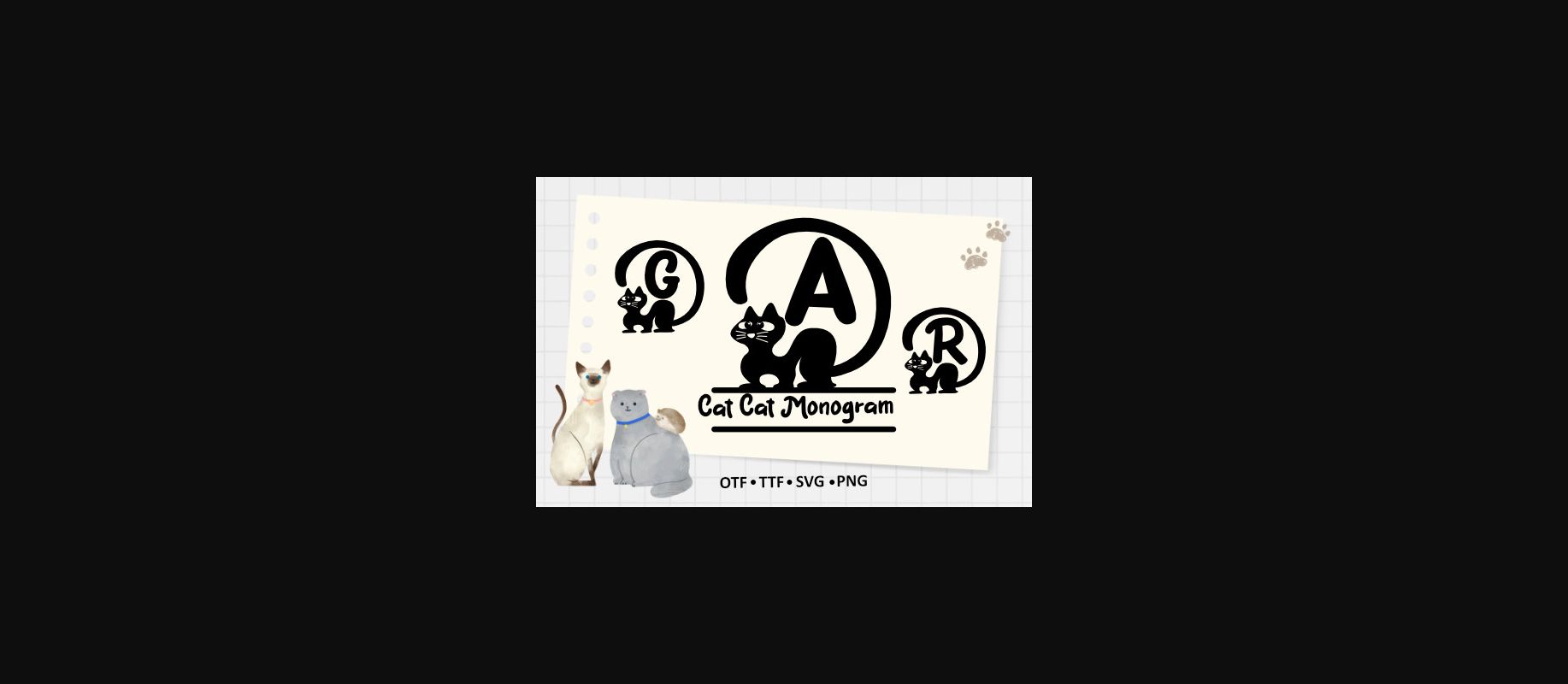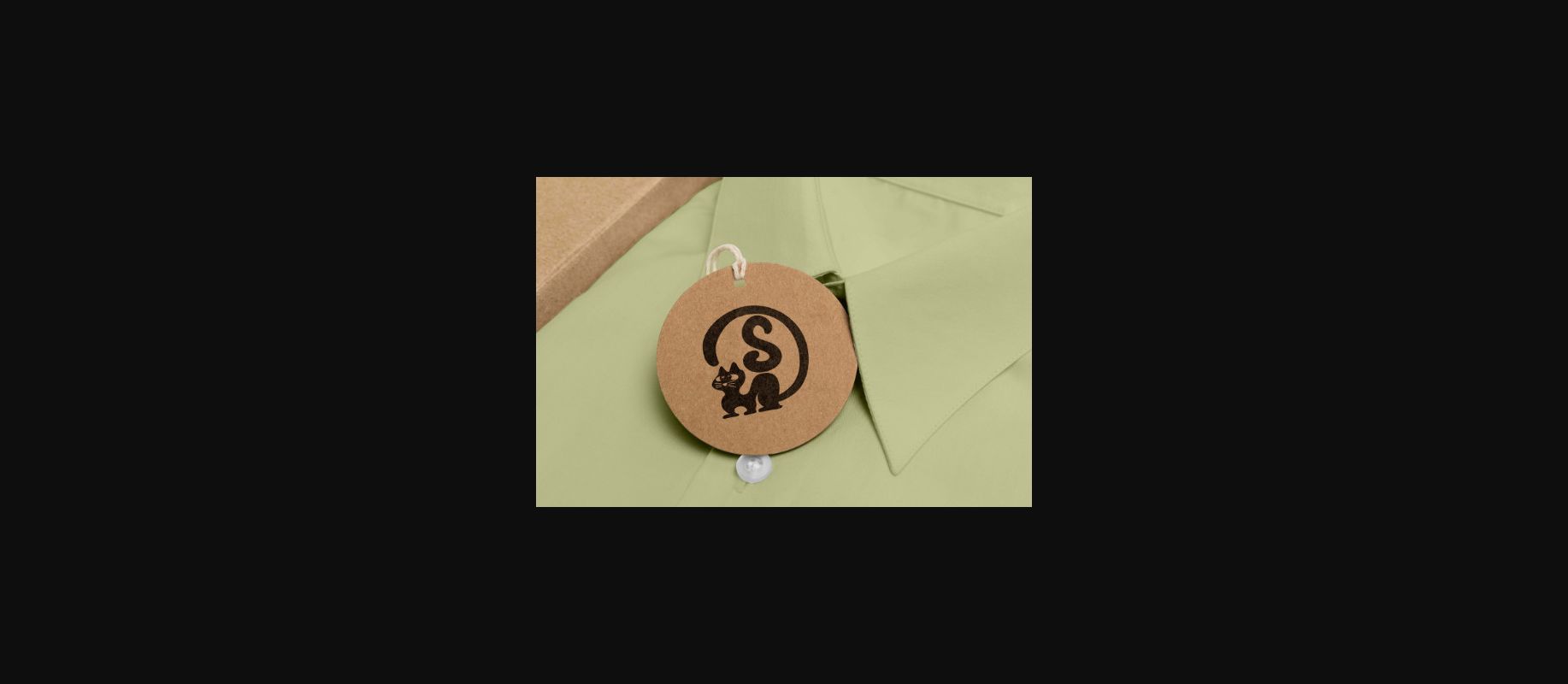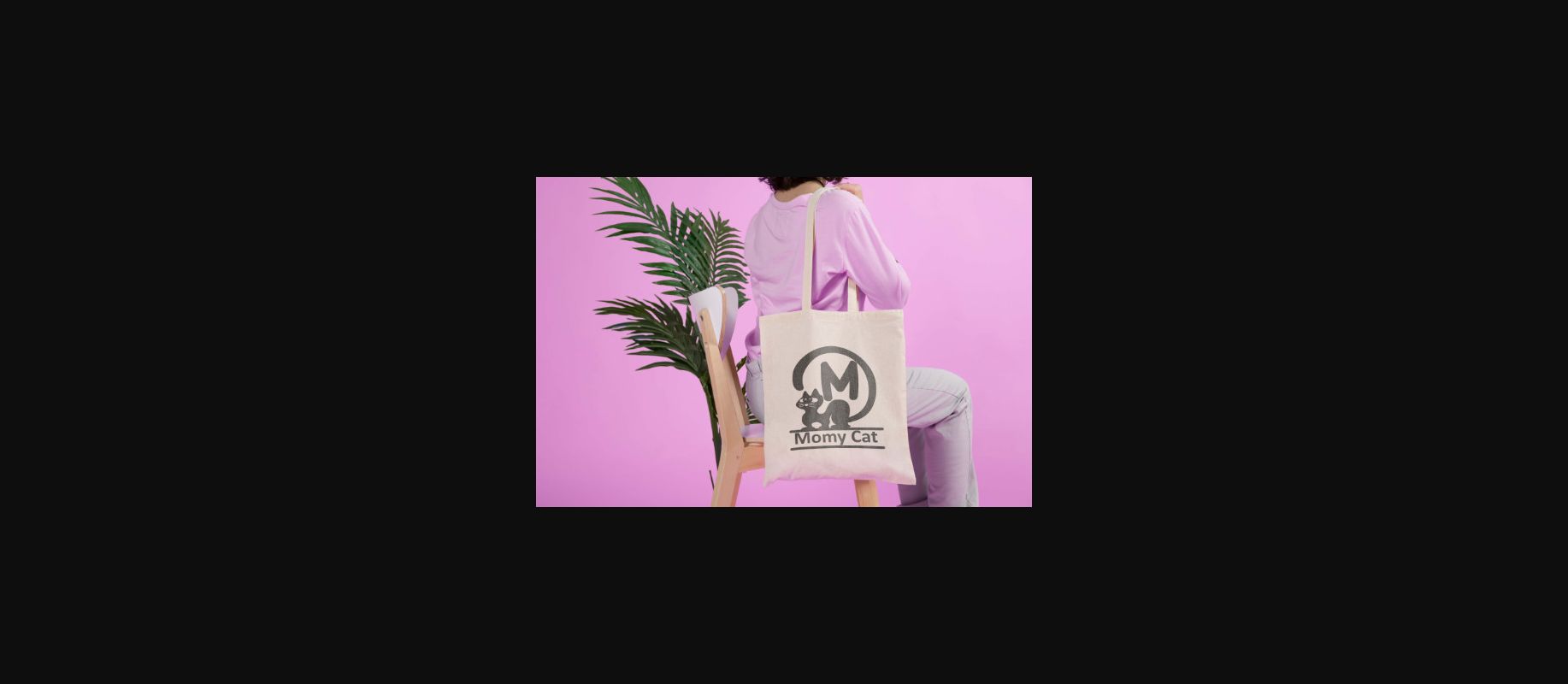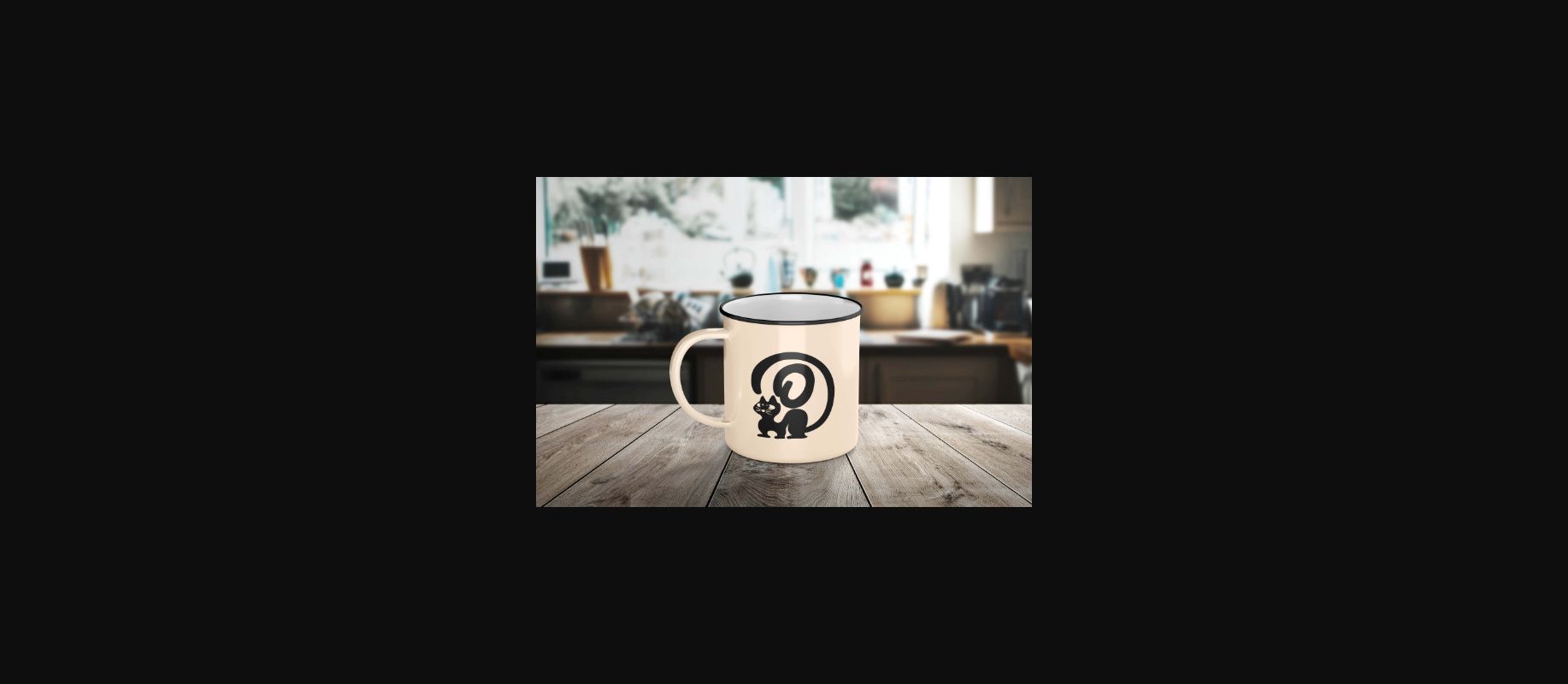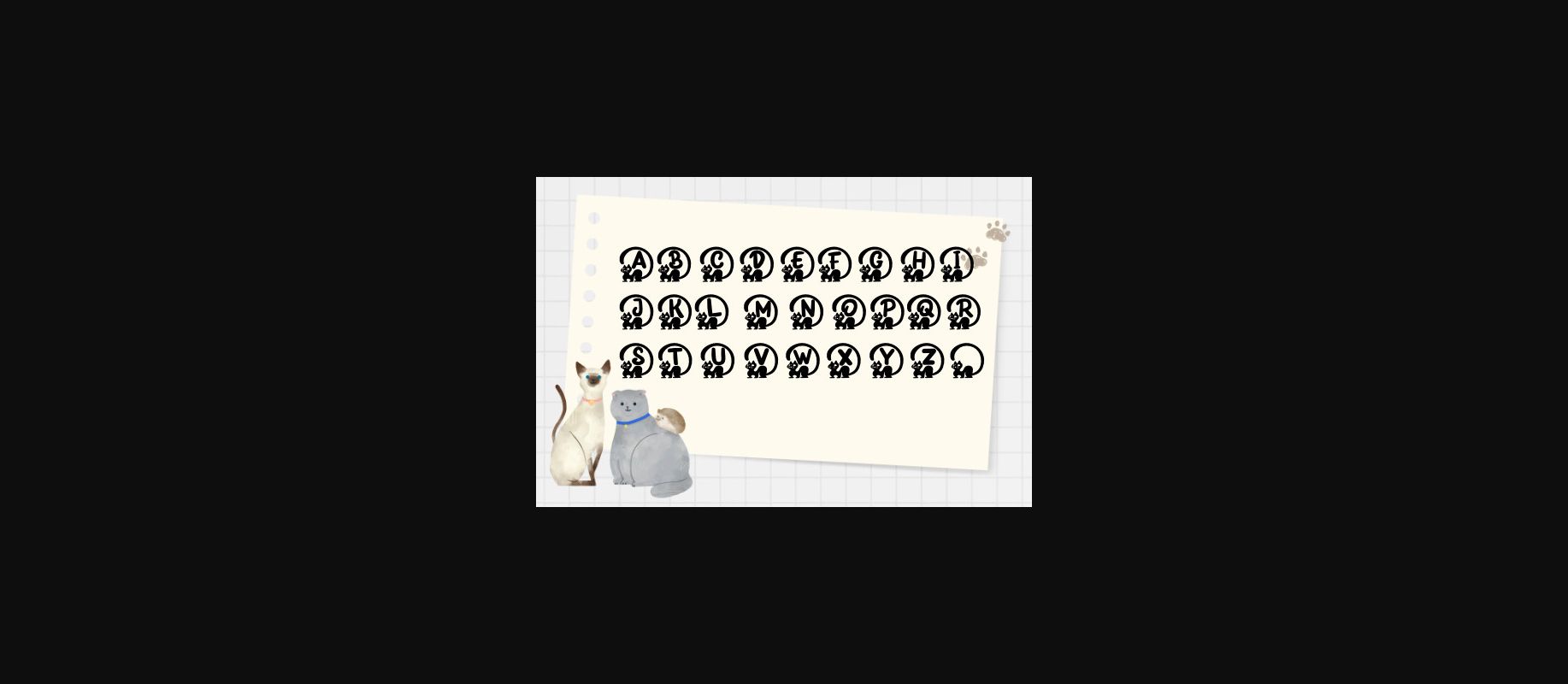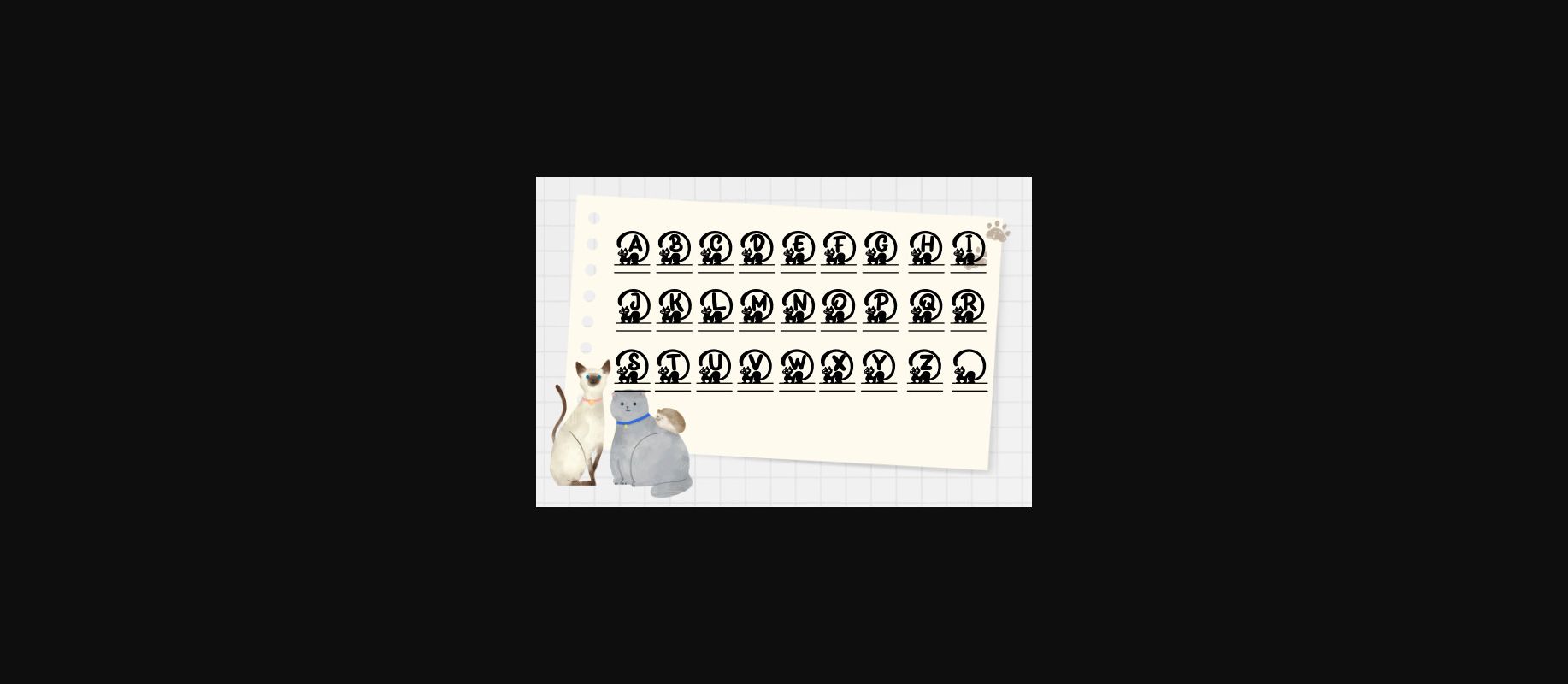
Cat Cat Monogram Font
About Cat Cat Monogram Font
Cat Cat Monogram is a dainty and unique decorative font. Add this cute and lovely-looking font to each of your love letters, invitations, or favorite design ideas, and you will be astounded by the outcome.